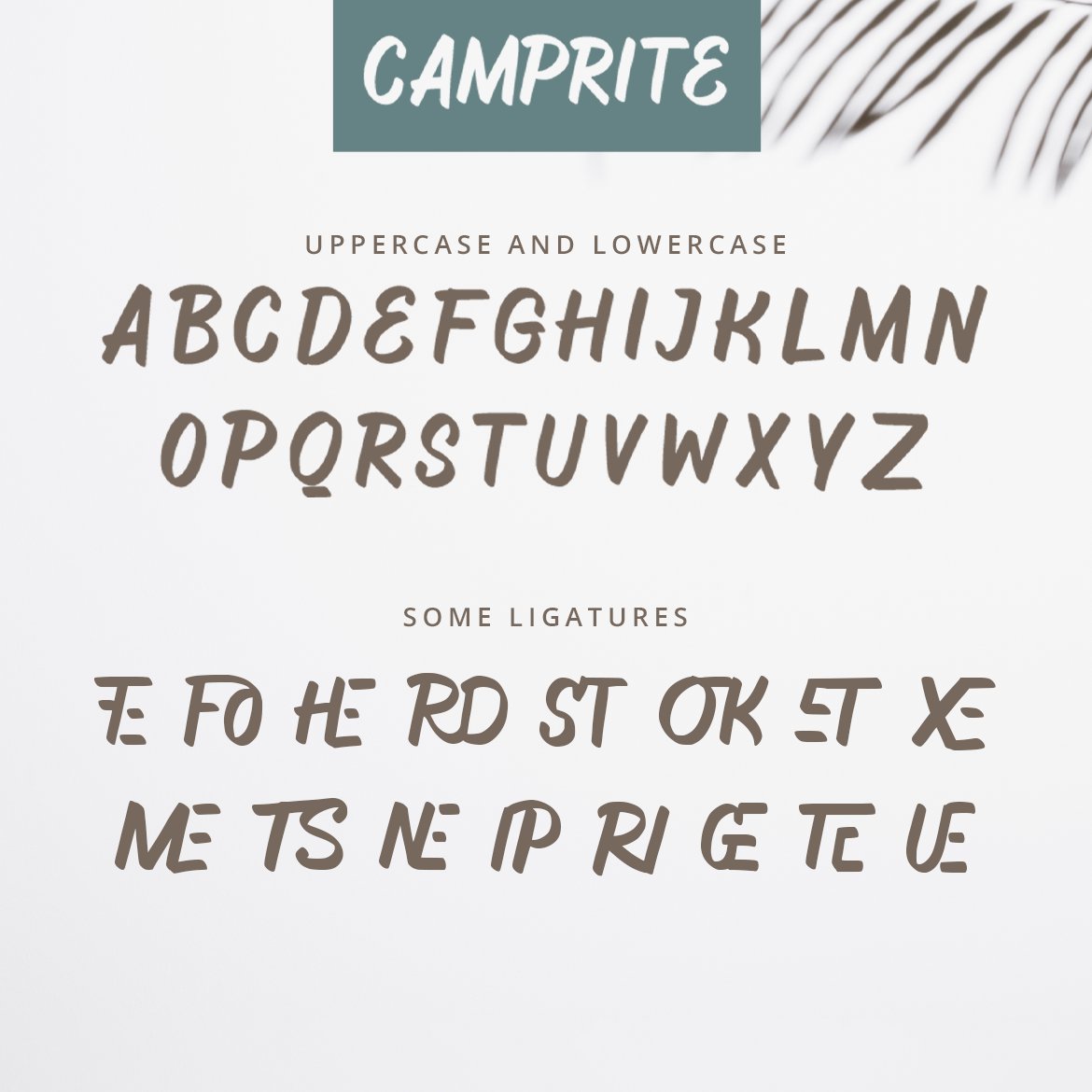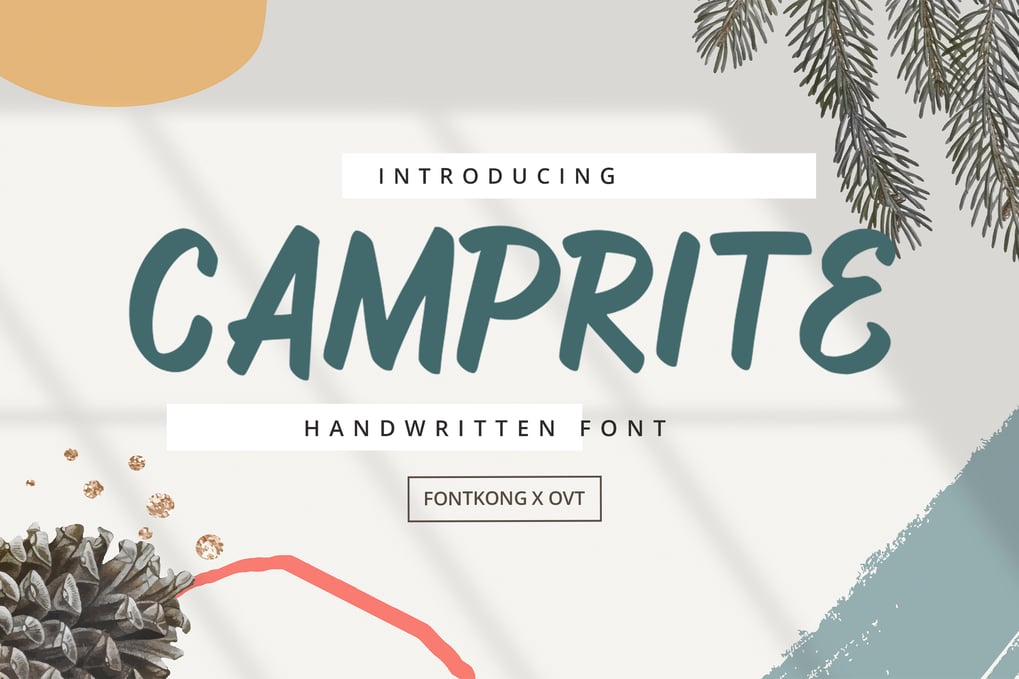
Camprite – Handwritten Font
Ideal for greeting cards, invitations, social media graphics, branding materials, and more, Camprite adds a warm and inviting aesthetic to your work. Each character is designed to mimic the fluidity and individuality of true hand lettering, ensuring your designs stand out with a unique and personal flair.